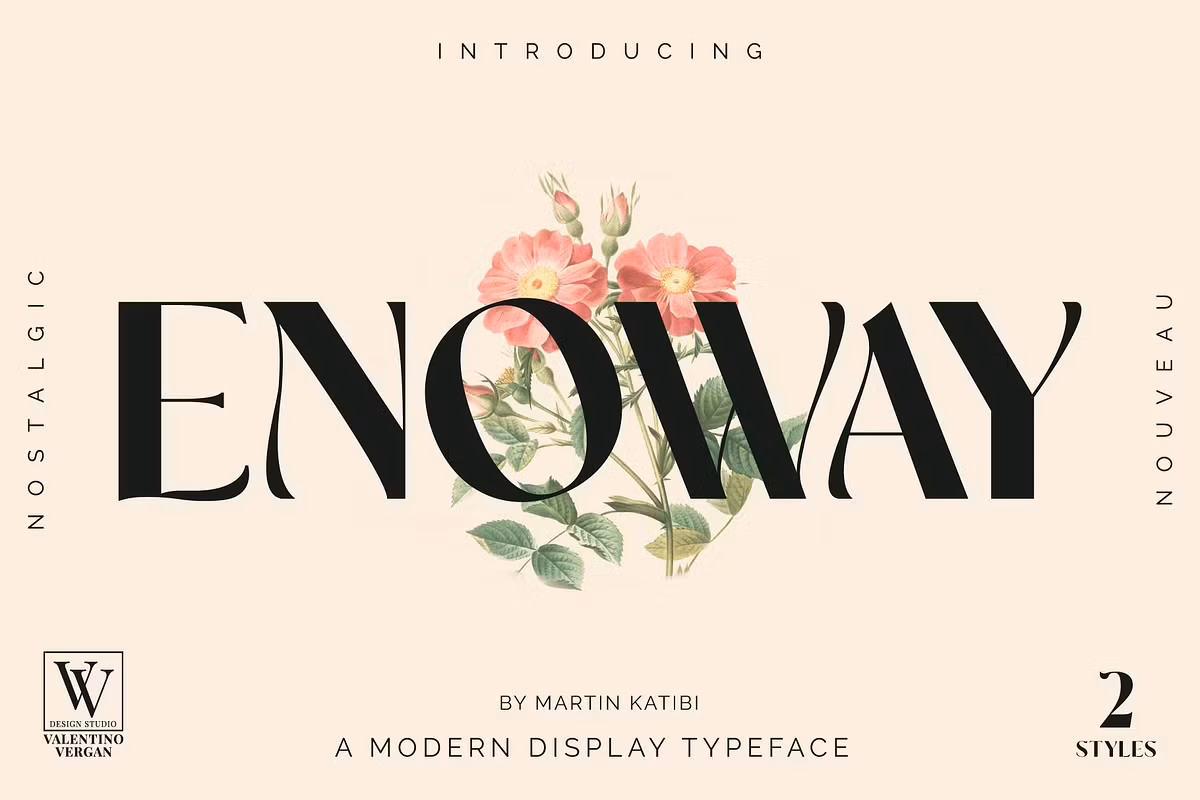
Enoway - Art Nouveau Typeface Free Download is a beautiful and elegant typeface inspired by the intricate and flowing designs of the Art Nouveau movement. With its organic curves, decorative letterforms, and sophisticated style, this font is perfect for projects that require a vintage, artistic touch, such as logos, branding, invitations, packaging, and editorial designs.
The Enoway font brings timeless beauty and elegance, with a strong emphasis on decorative detail and stylistic flourishes. Whether you're designing for a high-end brand, a luxury product, or a vintage-inspired event, this font adds a unique and artistic flair to your typography.
Add a touch of artistic elegance to your designs with the Enoway Art Nouveau Typeface!